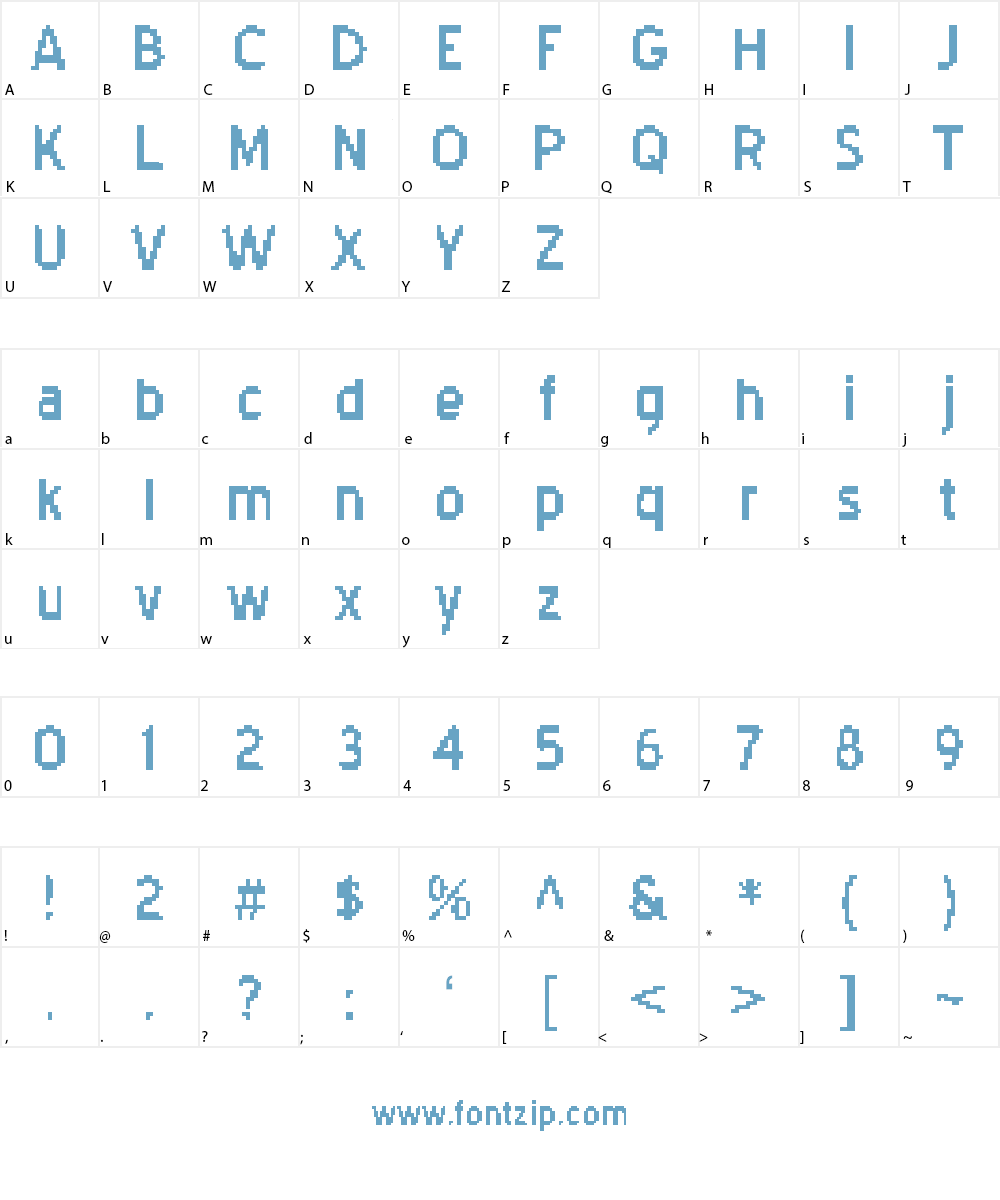
This font is a "pixielated" version of Ray Larabie's Blue Highway. I remade Blue Highway as a pixel font and called them Pixielated, a font based Canada/U.S. highway sign lettering.